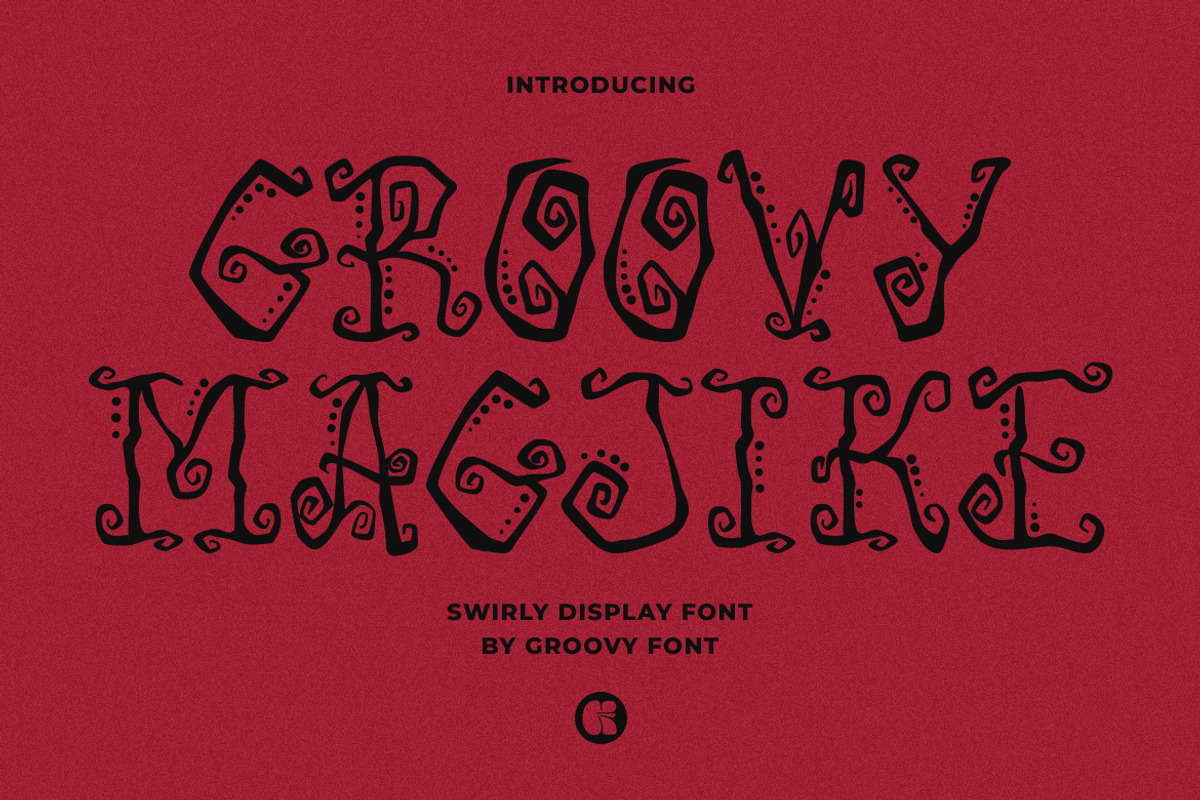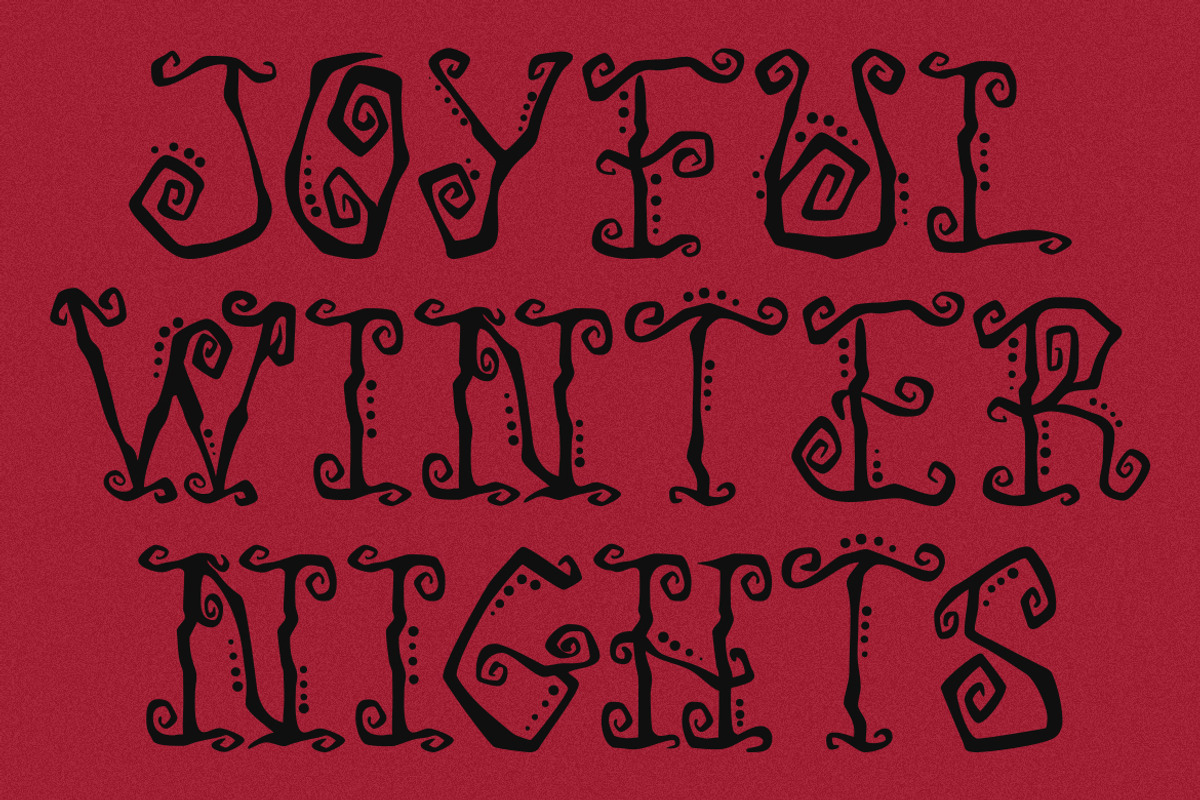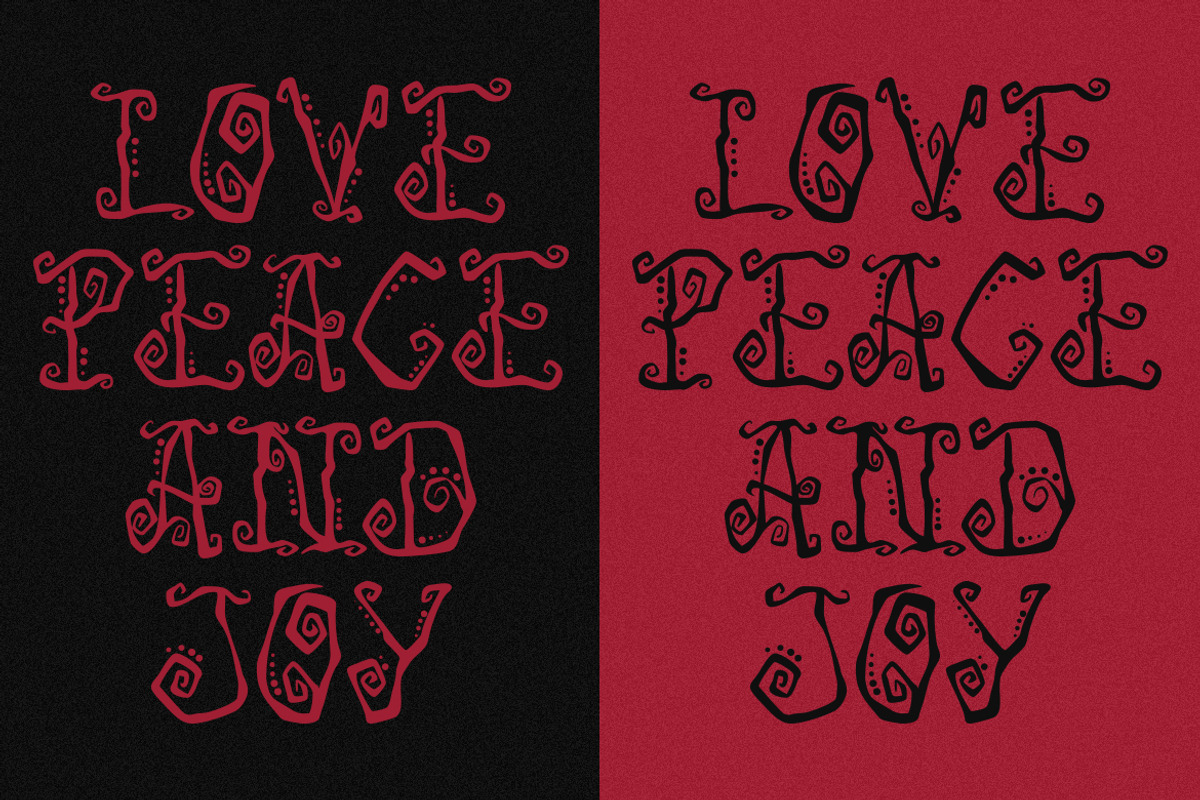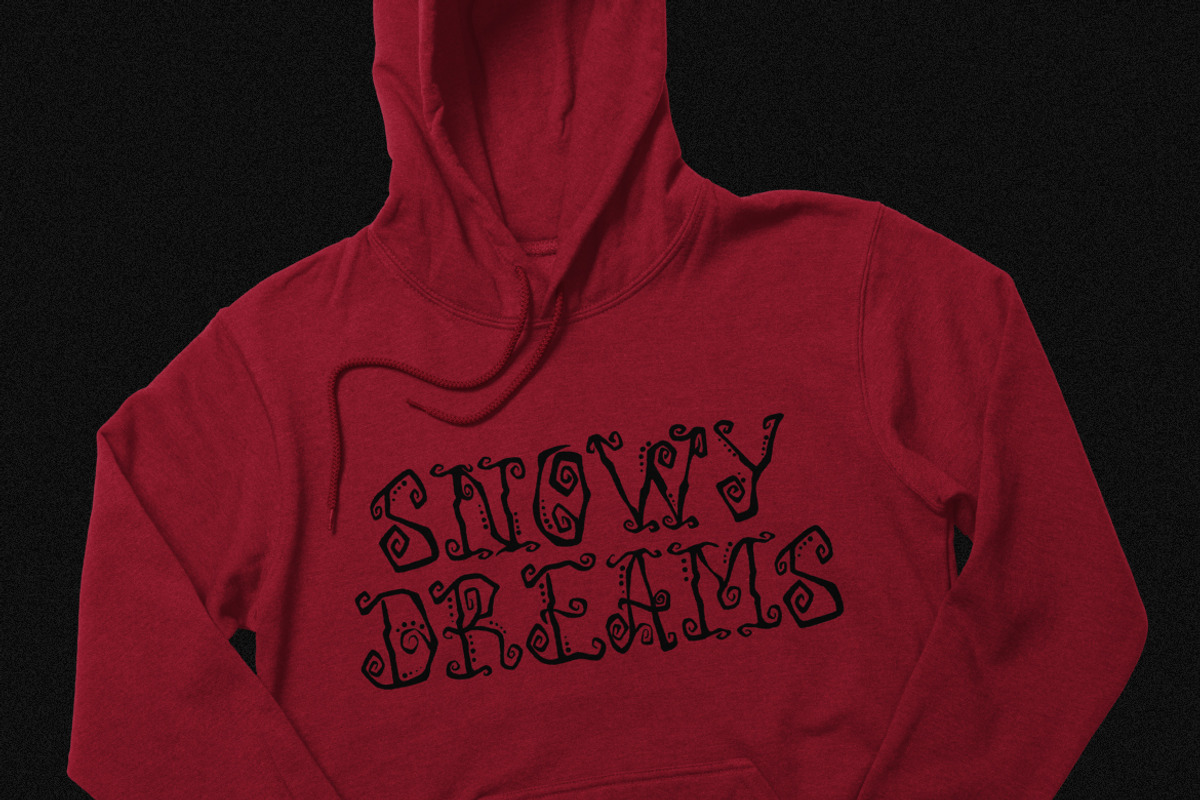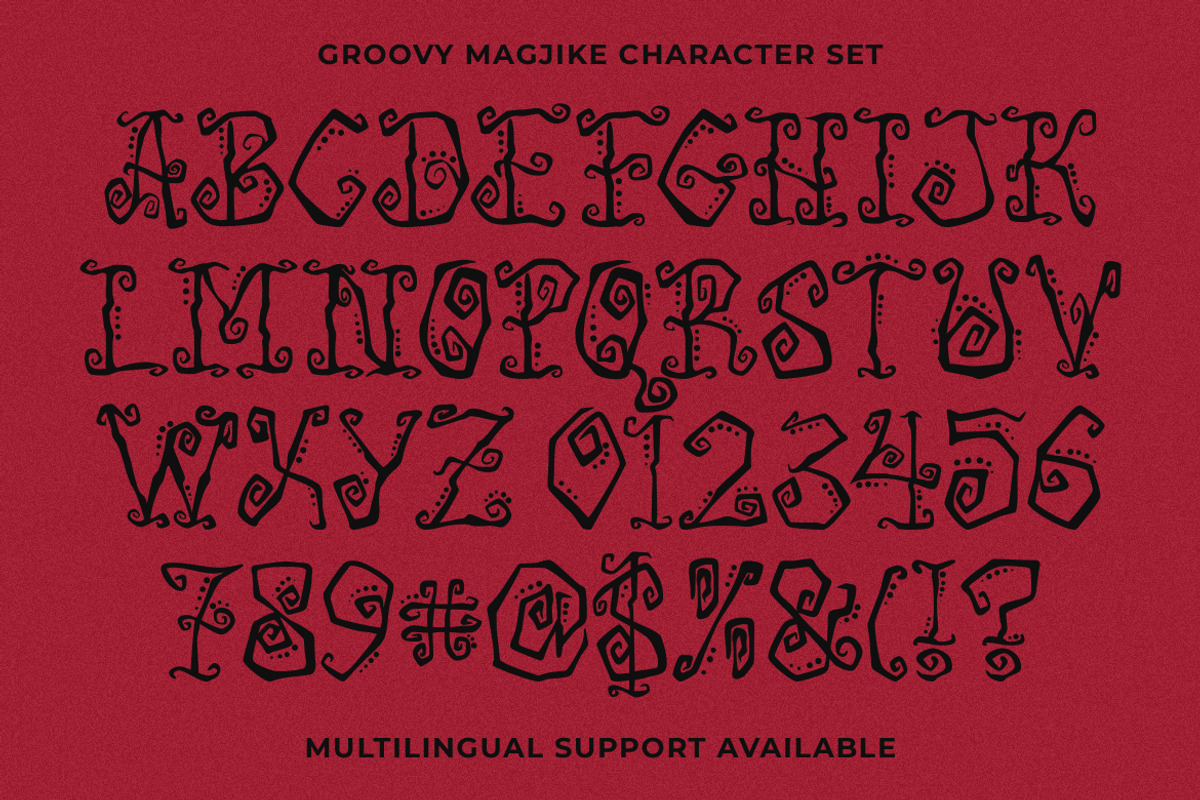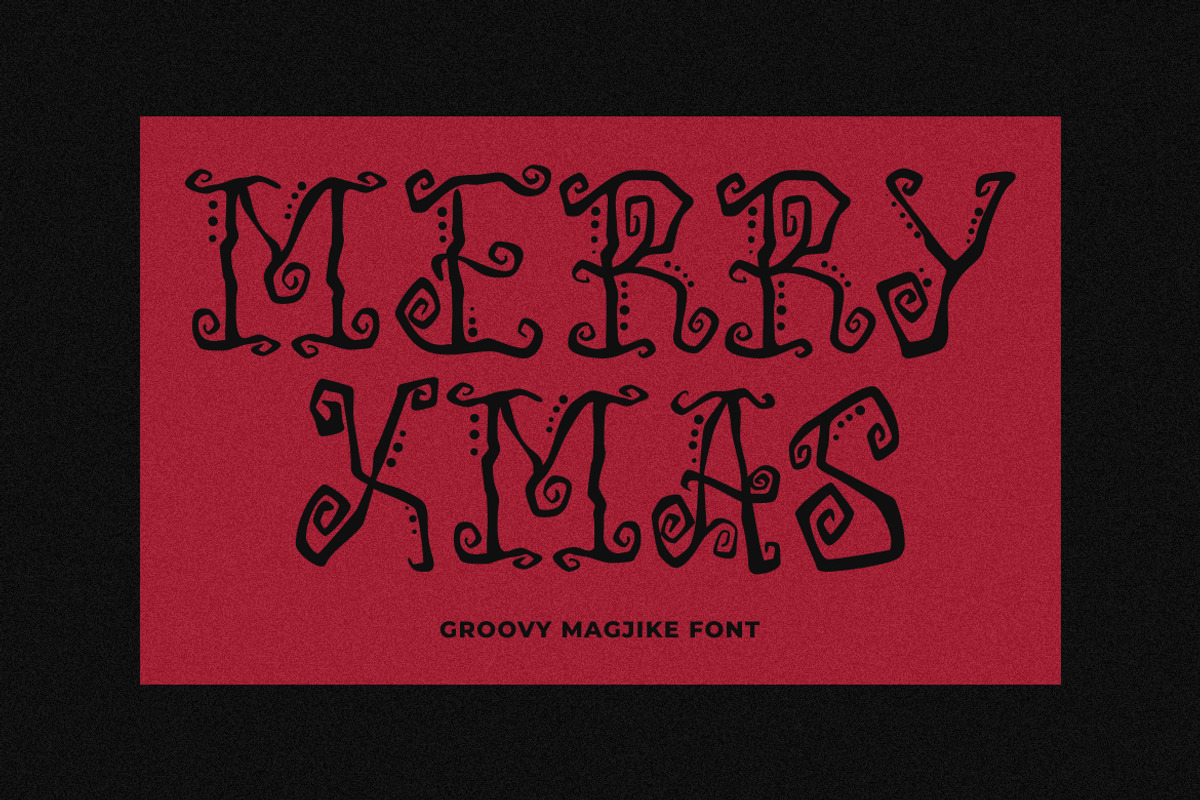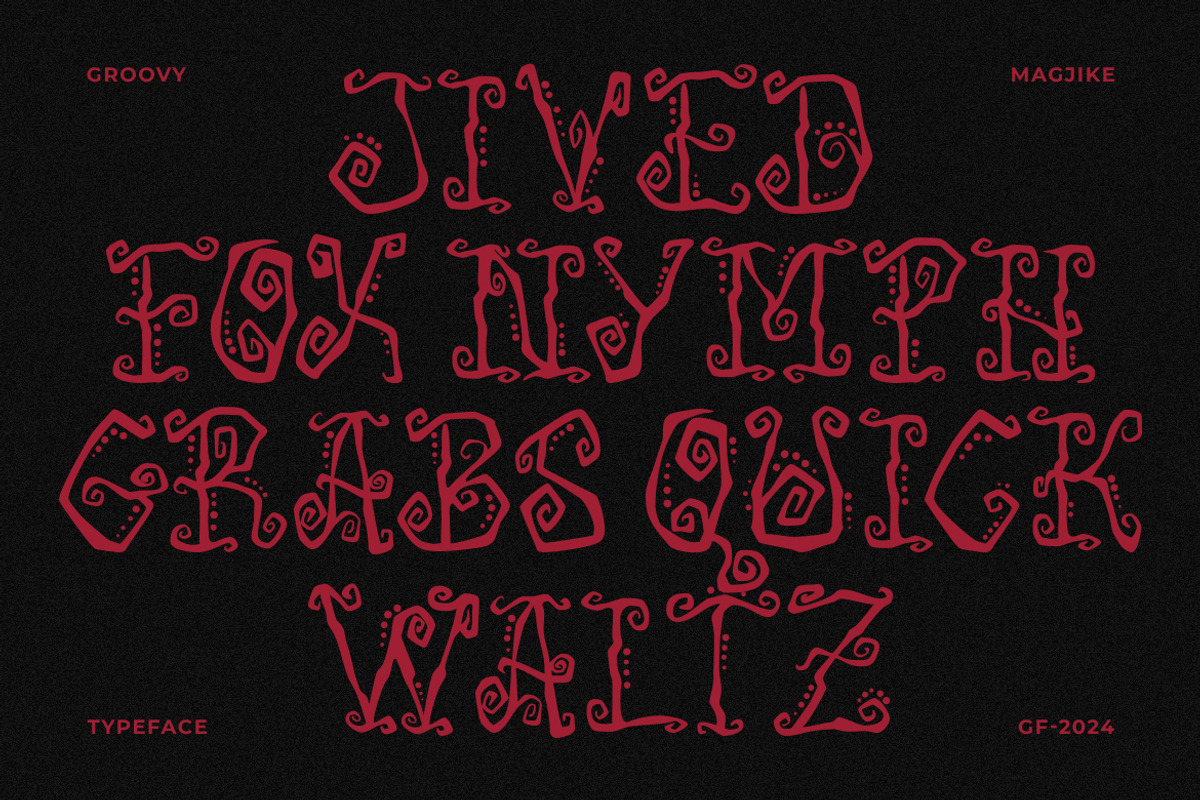
GF Magjike - Swirly Display Font
Groovy Magjike is a whimsical swirly display font that adds a touch of elegance to your designs. With intricate swirls and additional dot textures on the letters, this font exudes a charming and festive vibe.
Perfect for creating Christmas-themed designs, Groovy Magjike brings a magical and playful element to your projects. Let this unique and decorative font spark joy and creativity in your holiday creations!